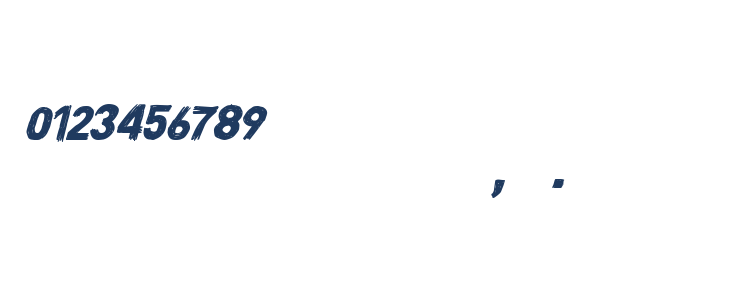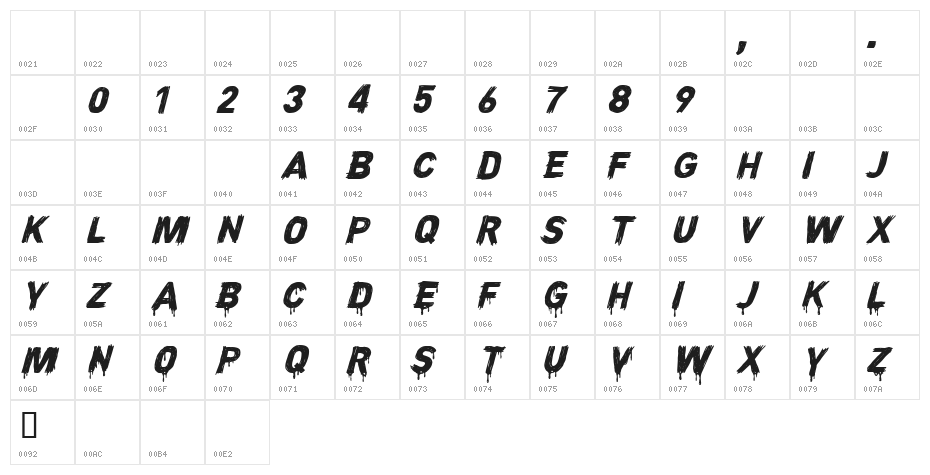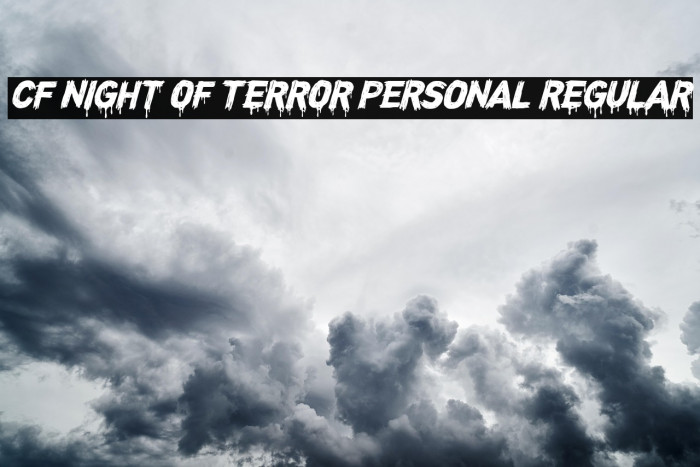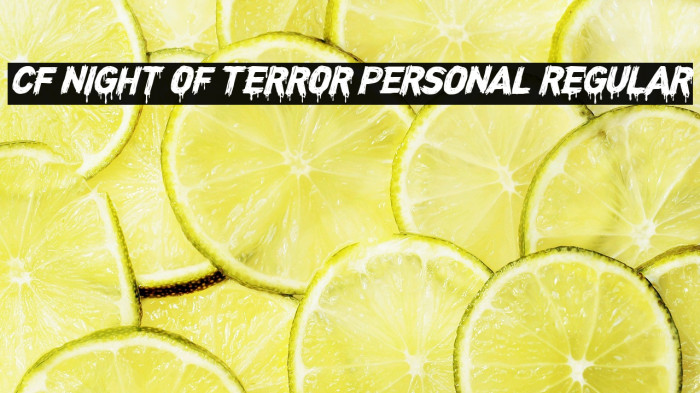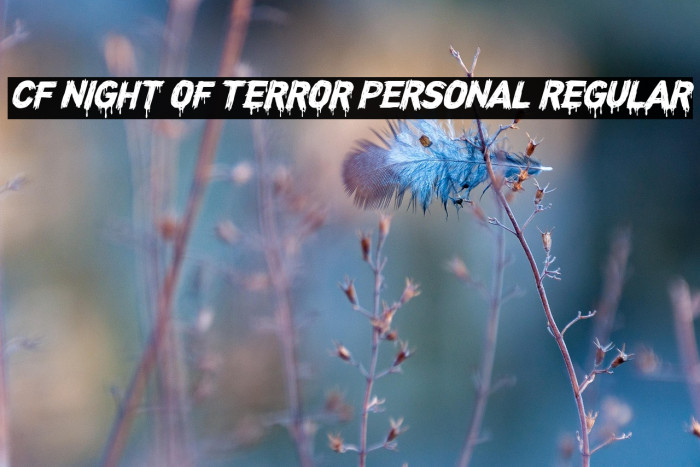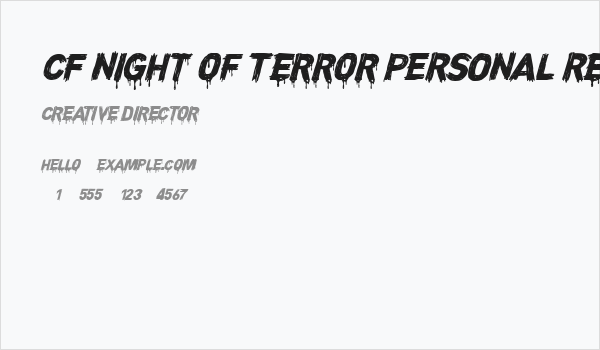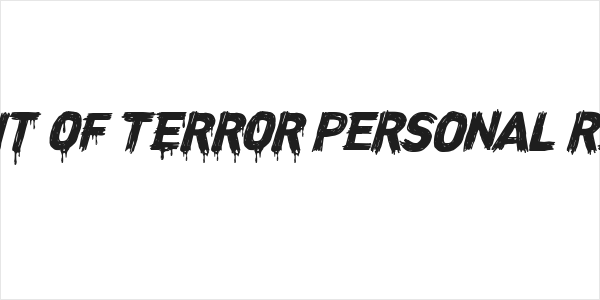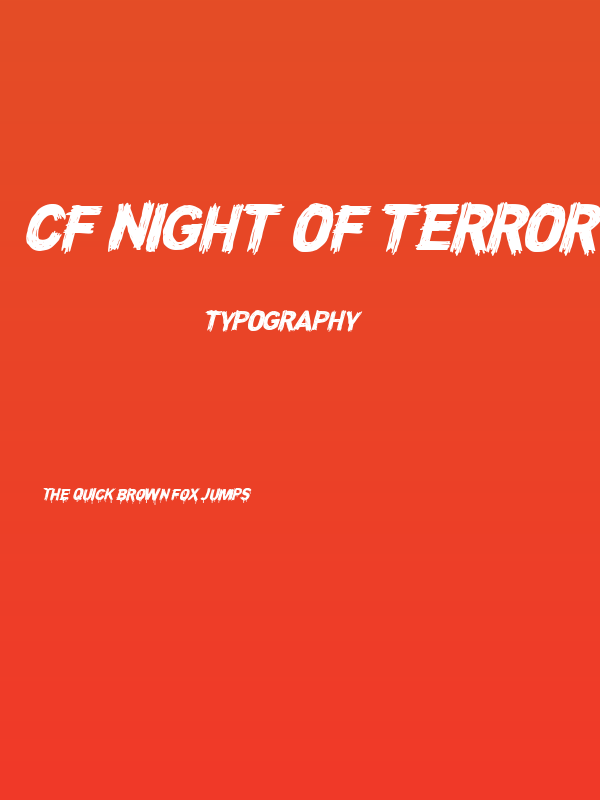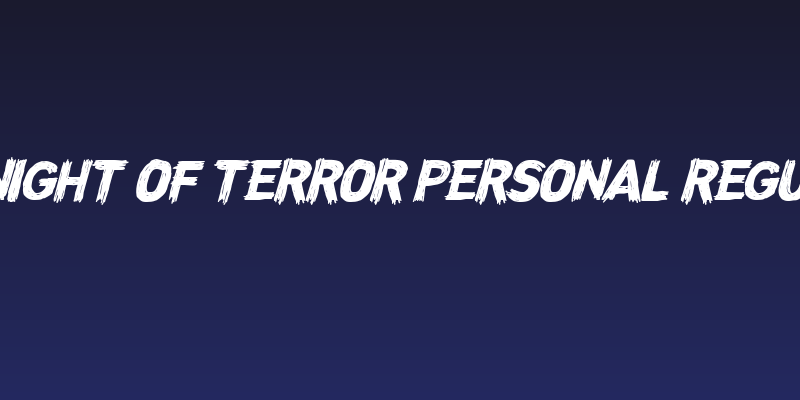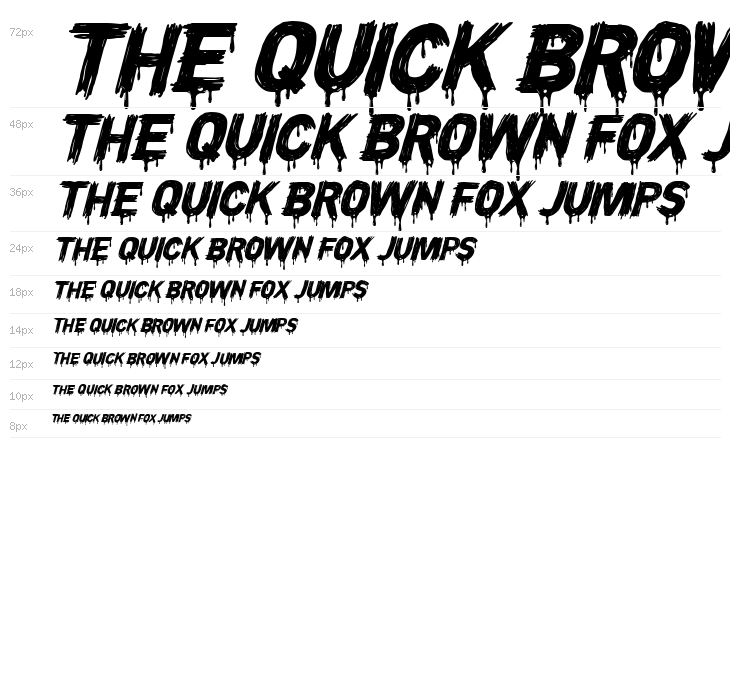
CF Night of Terror PERSONAL Regular Font
CF Night of Terror PERSONAL Regular Description
This font features a bold and dramatic style with a distressed, dripping effect that evokes a sense of horror and suspense. The uppercase and lowercase letters are designed with jagged edges and irregular strokes, creating a chaotic and unsettling appearance. The numbers and special characters maintain the same eerie aesthetic, making it suitable for themes related to fear, mystery, or Halloween. The font's unique design captures attention and adds a touch of the macabre to any project.
| Proposed Projects | Ideal for Halloween posters, horror movie titles, haunted house flyers, and spooky event invitations. |